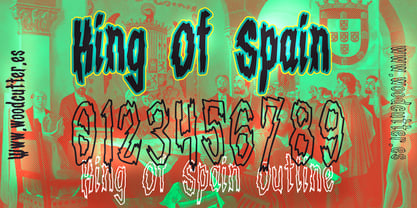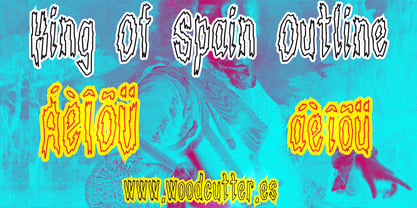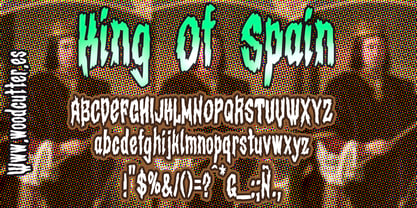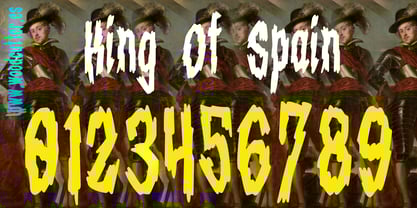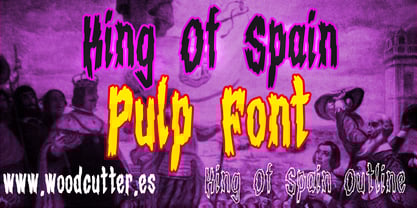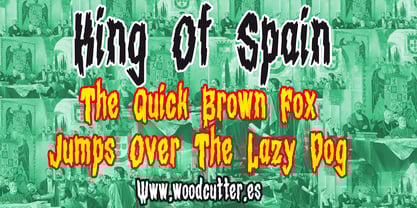
King Of Spain
The King Of Spain Font Family was designed by Jordi Manero and published by Woodcutter. King Of Spain contains 2 styles and family package options. More about this family
King Of Spain is a type family in uppercase and lowercase with accents, designed in a pulp vintage style, inspired by the covers of classic horror magazines, yet infused with a distinct gothic touch that adds drama and a dark atmosphere. Its solid forms recall the posters of mid-20th-century fantasy films, with letters that feel tense, irregular, and powerful, transmitting strength and instant impact. Each character blends the grotesque with the elegant, striking a balance between retro aesthetics and haunting presence.
The family includes two variants:
King Of Spain, the solid version, with bold, heavy letters perfect for headlines, posters, and any project aiming for a strong, dark aesthetic.
King Of Spain Outline, the outlined version, which adds lightness and versatility, ideal for experimental compositions, layering, or designs with mysterious atmospheres.
Both fonts allow designers to play between the terrifying and the stylish, offering wide creative possibilities. King Of Spain is ideal for editorial projects, horror movie posters, music-related design, or alternative branding. Its vintage soul, combined with gothic and pulp influences, makes it a powerful graphic tool full of personality and presence.